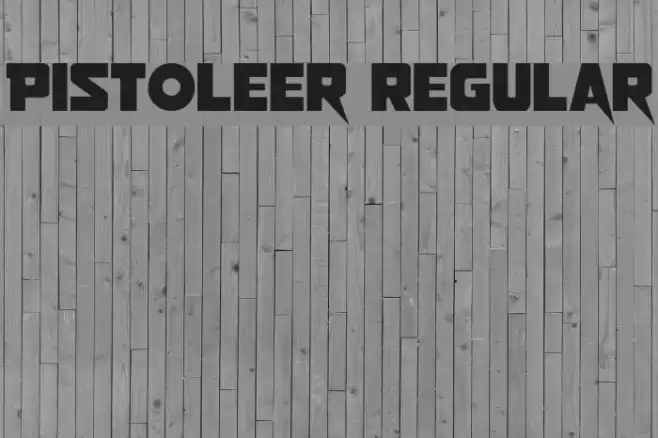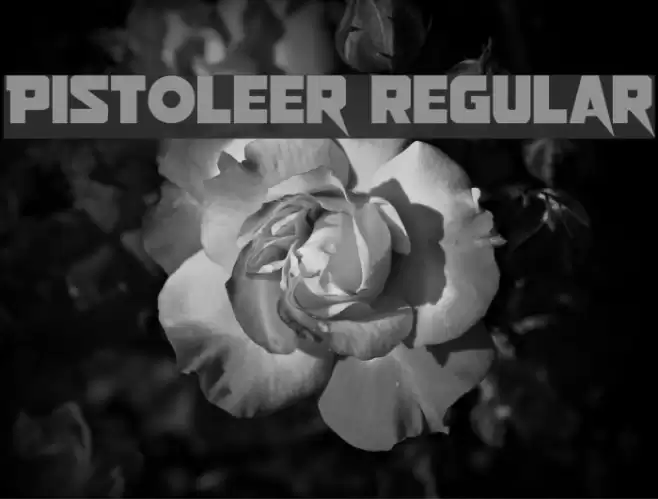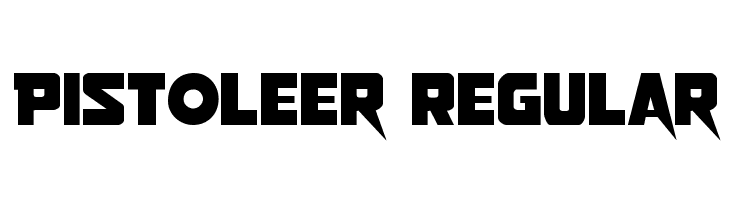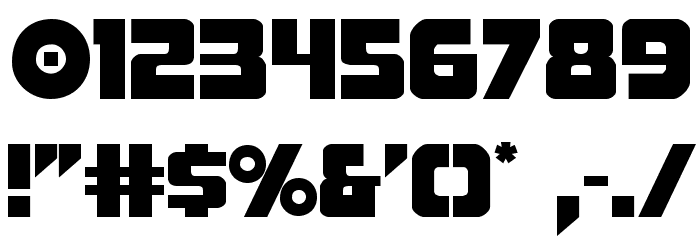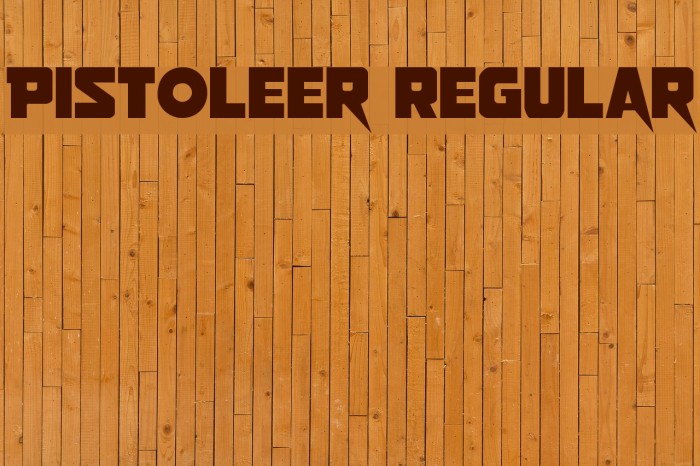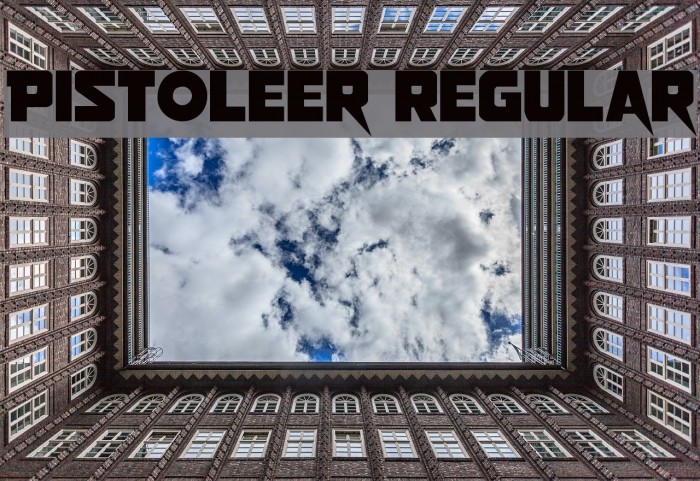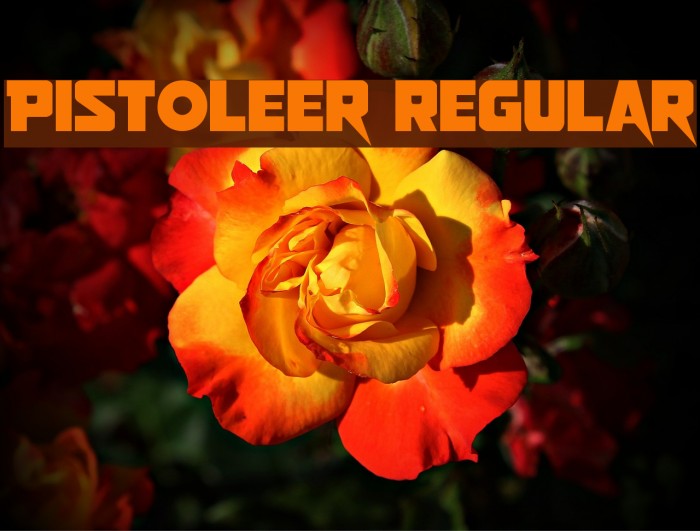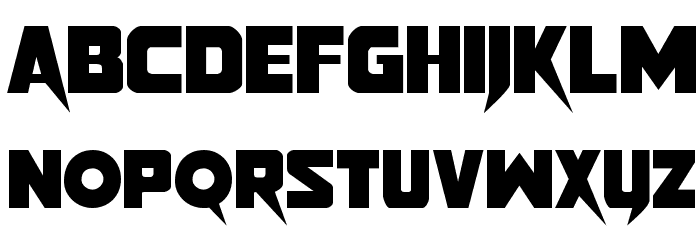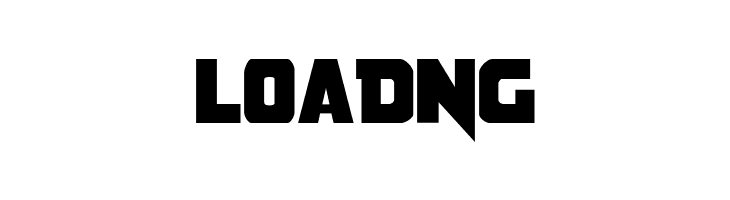
Pistoleer Regular Font
Pistoleer Regular Description
This font features a bold and striking design with sharp, angular edges that give it a dynamic and aggressive appearance. The characters are heavily stylized, with unique cuts and points that add a sense of movement and energy. The uppercase and lowercase letters maintain a consistent weight, contributing to a cohesive look. The numerals and special characters are equally bold, ensuring readability while maintaining the font's distinctive style. This font is ideal for projects that require a strong visual impact.
A bold, angular font with sharp edges and a dynamic style from Uncategorized fonts.
- Proposed Projects: Perfect for posters, video game titles, sports branding, and any project needing a bold, impactful typeface.